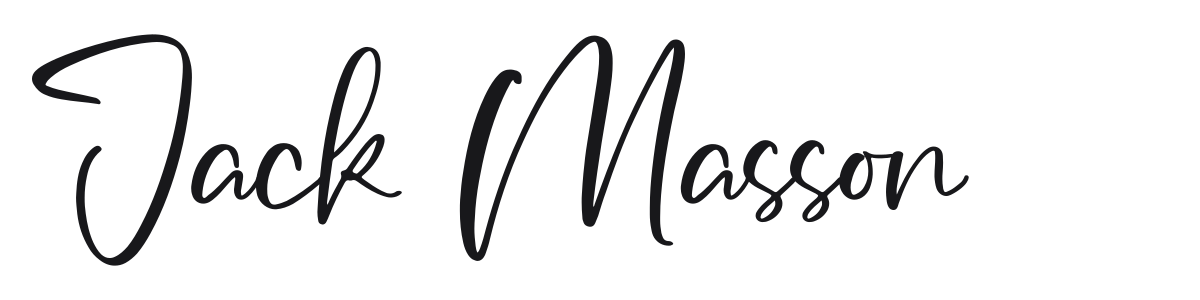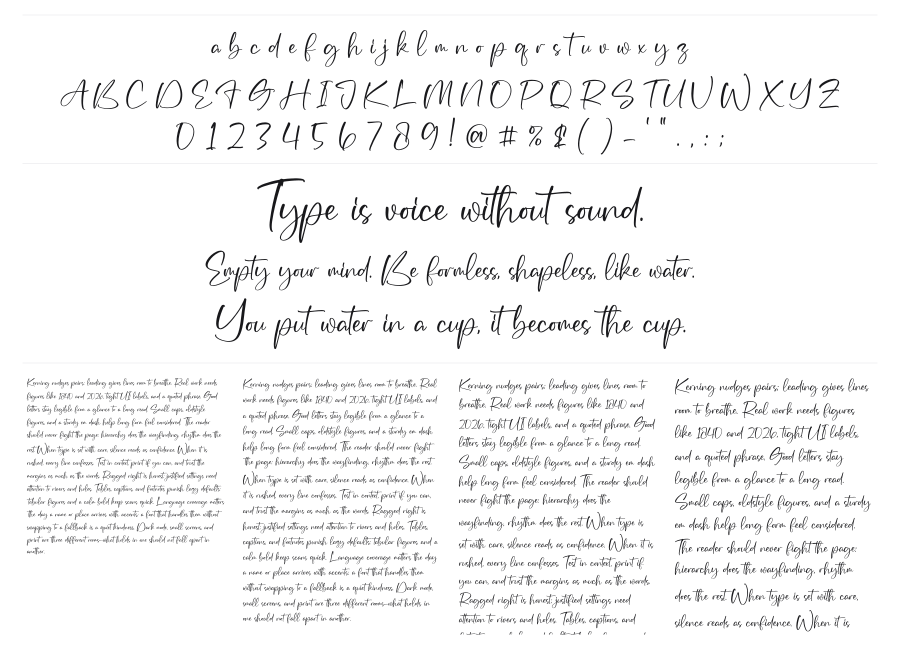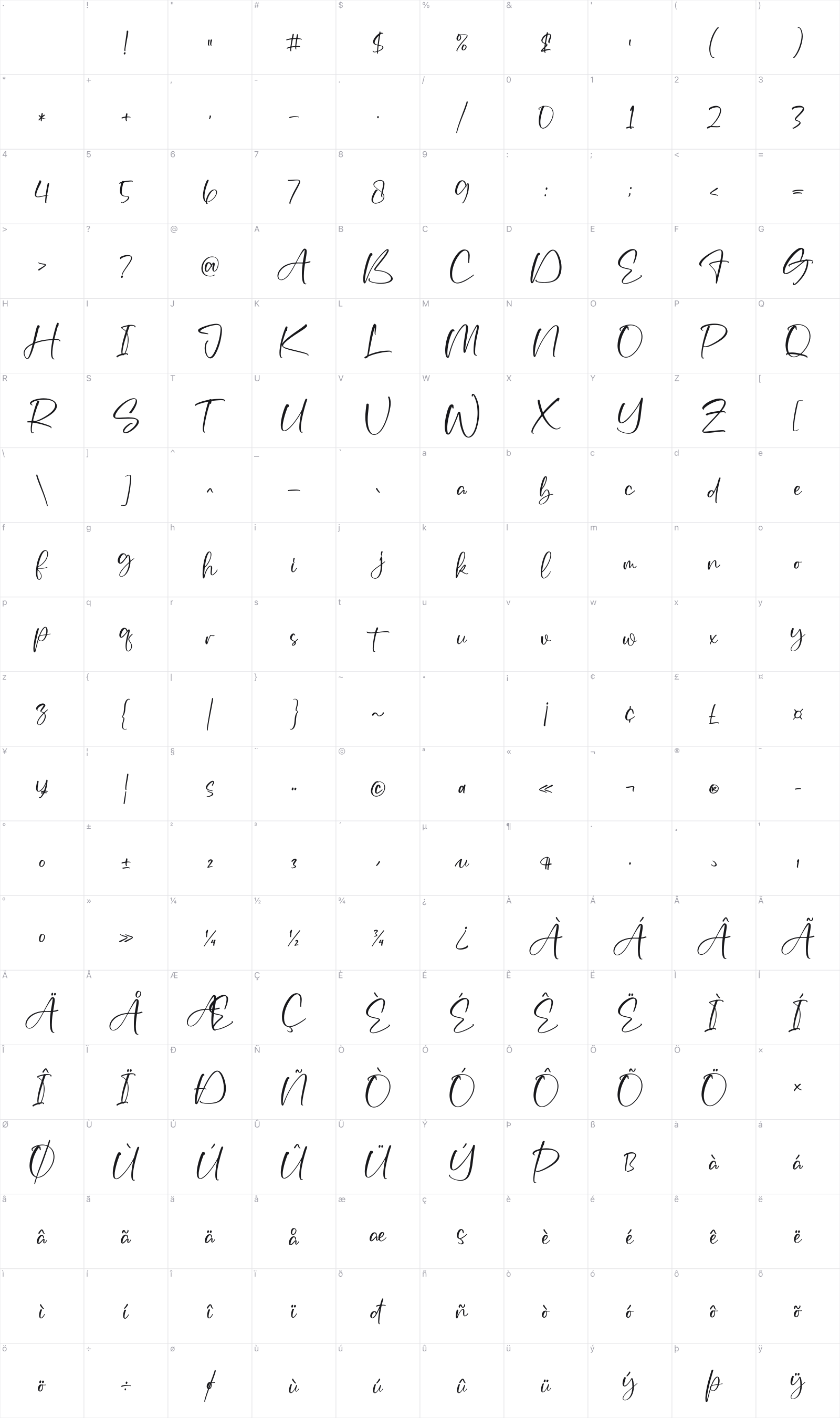
Jack Masson
Jack Masson is a flowing casual script with a lively bounce and contemporary calligraphic warmth. Generous ascenders and descenders weave together into an organic, hand-lettered texture that feels personal without being sloppy. It works well for wedding stationery, packaging, and any branding that needs a handcrafted, approachable character.